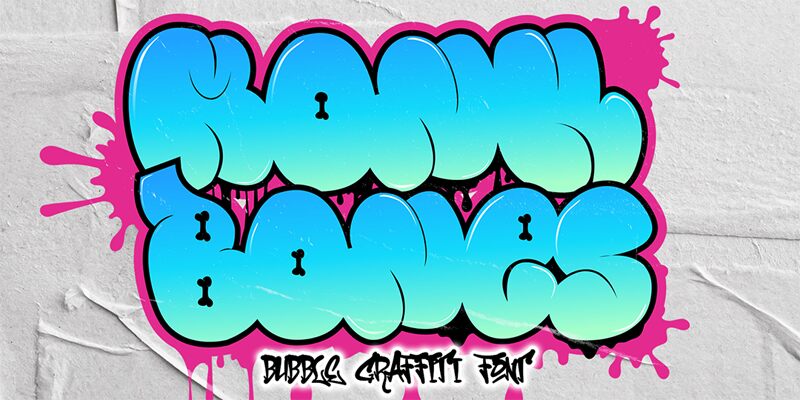
Monk Bones by Cikareotype Studio is a bold, graffiti-inspired font that commands attention with its raw, expressive aesthetic. Crafted with a gritty, handcrafted sensibility, this font exudes a unique blend of urban edge and dynamic energy. The irregular, organic letterforms and the playful interplay of positive and negative space create a visually captivating typeface that immediately draws the eye.
This versatile font lends itself well to a variety of design applications, from eye-catching headlines and impactful branding to edgy, street-inspired layouts. Monk Bones' bold, distinctive character makes it an excellent choice for projects that require a strong, memorable typographic presence, such as poster designs, album covers, and event promotions. Its adaptability and striking visual appeal make it a valuable addition to any designer's toolkit.
Monk Bones